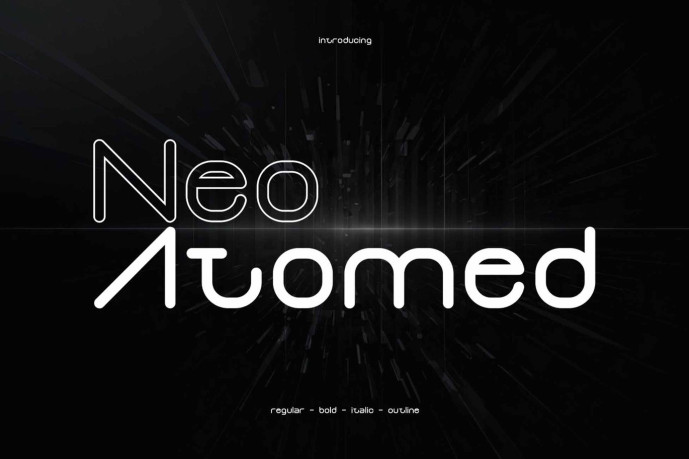
Neo Atomed – a Futuristic Display Font
Designer: Jada Akbal
Neo Atomed is a futuristic display font designed with sleek geometric forms and a bold technological aesthetic. Combining modern precision with sci-fi inspiration, its distinctive letterforms create a powerful visual identity that stands out across digital and print media.
Ideal for branding, logo design, product packaging, technology branding, gaming titles, posters, website headers, editorial layouts, social media graphics, and other forward-thinking display projects. The font includes standard English letters, numbers, punctuation, ligatures, and multilingual support, making it a versatile solution for contemporary creative work.
• Standard uppercase and lowercase letters
• Numbers and basic punctuation
• Futuristic geometric display letterforms with ligatures
• Several accented characters for multilingual support
• Styles included: Neo Atomed Regular, Outline, Bold & Italic